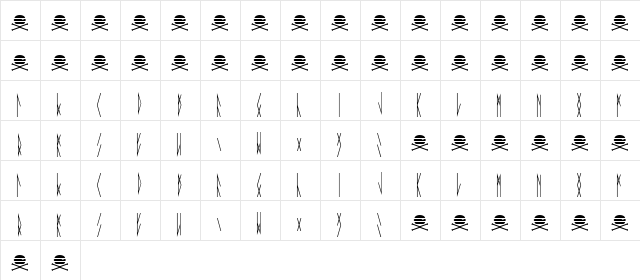
Fort Wendy Regular
Design Context for Fort Wendy Typeface
Fort Wendy is a composed and adaptable typeface that performs quietly and consistently across a wide range of design contexts.